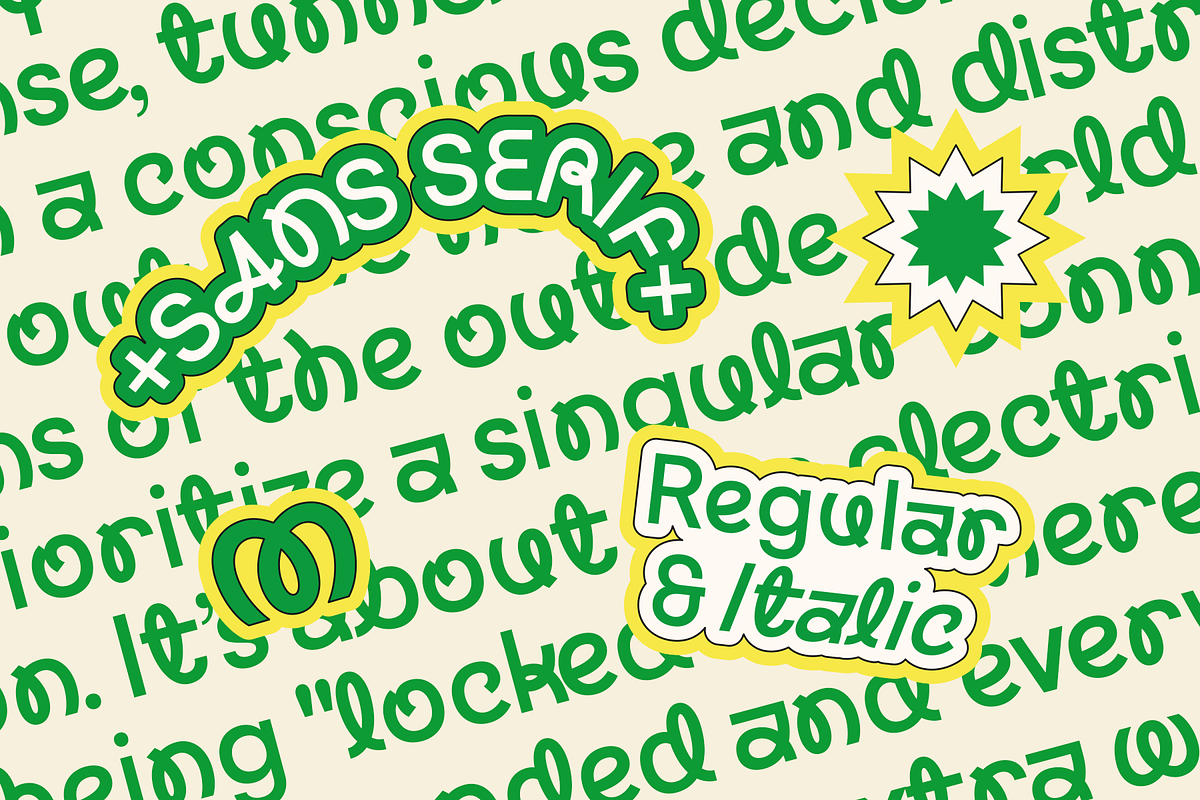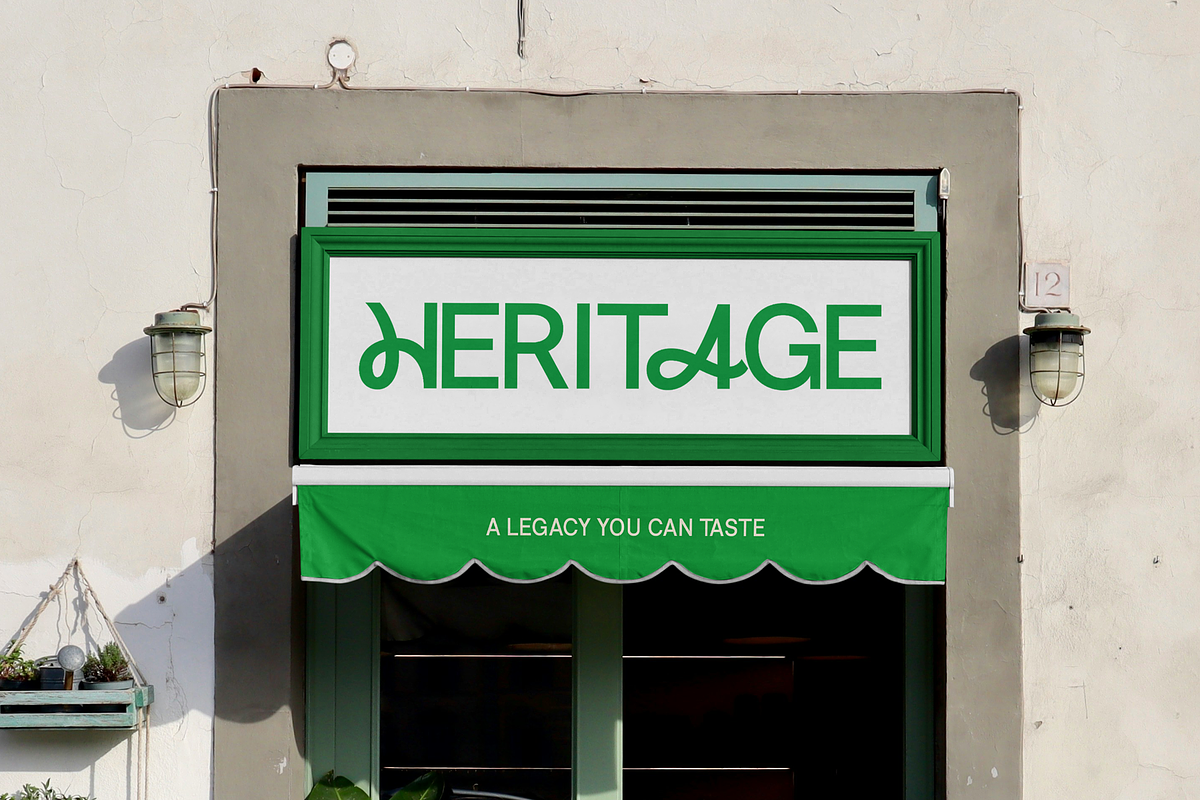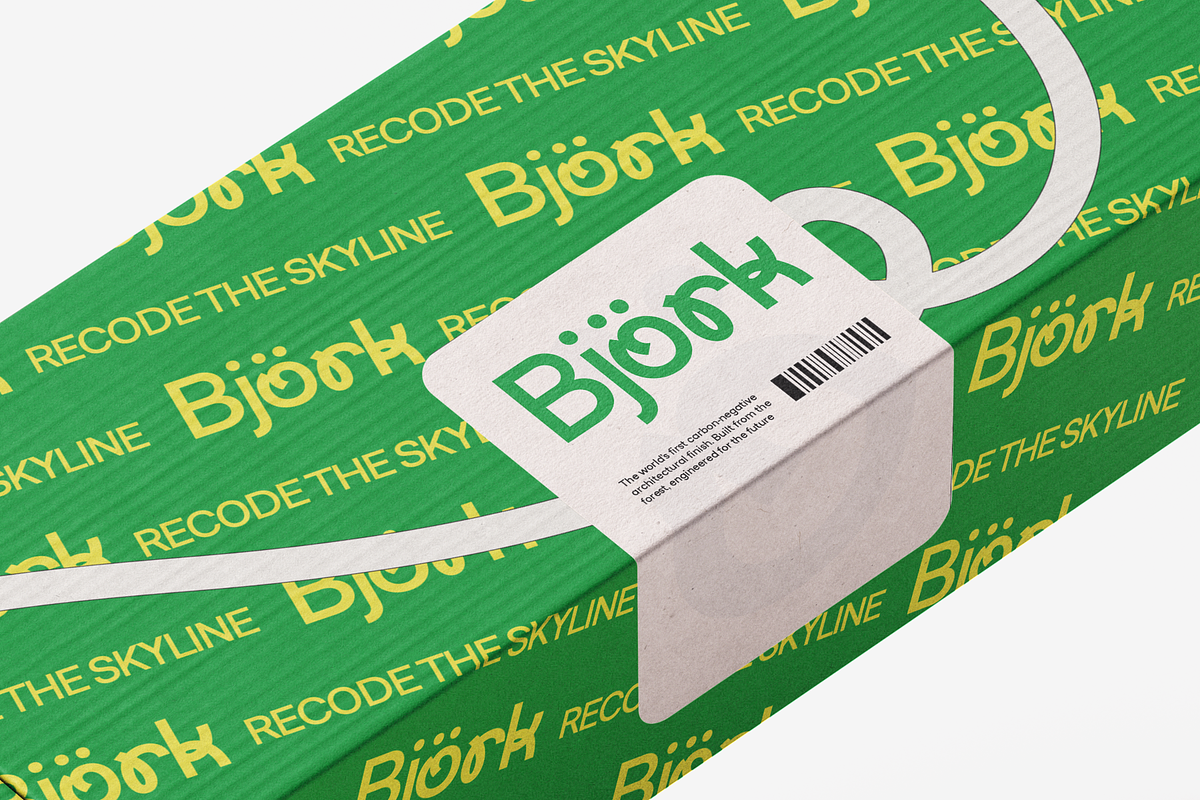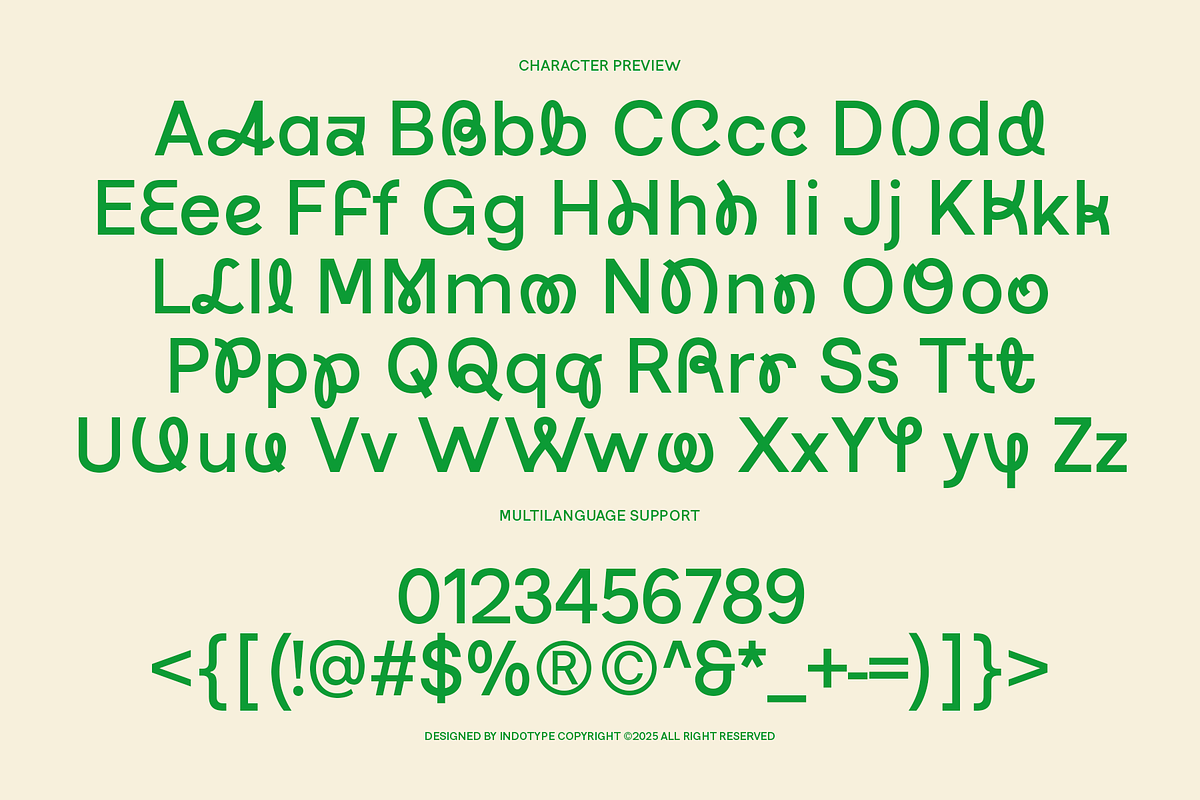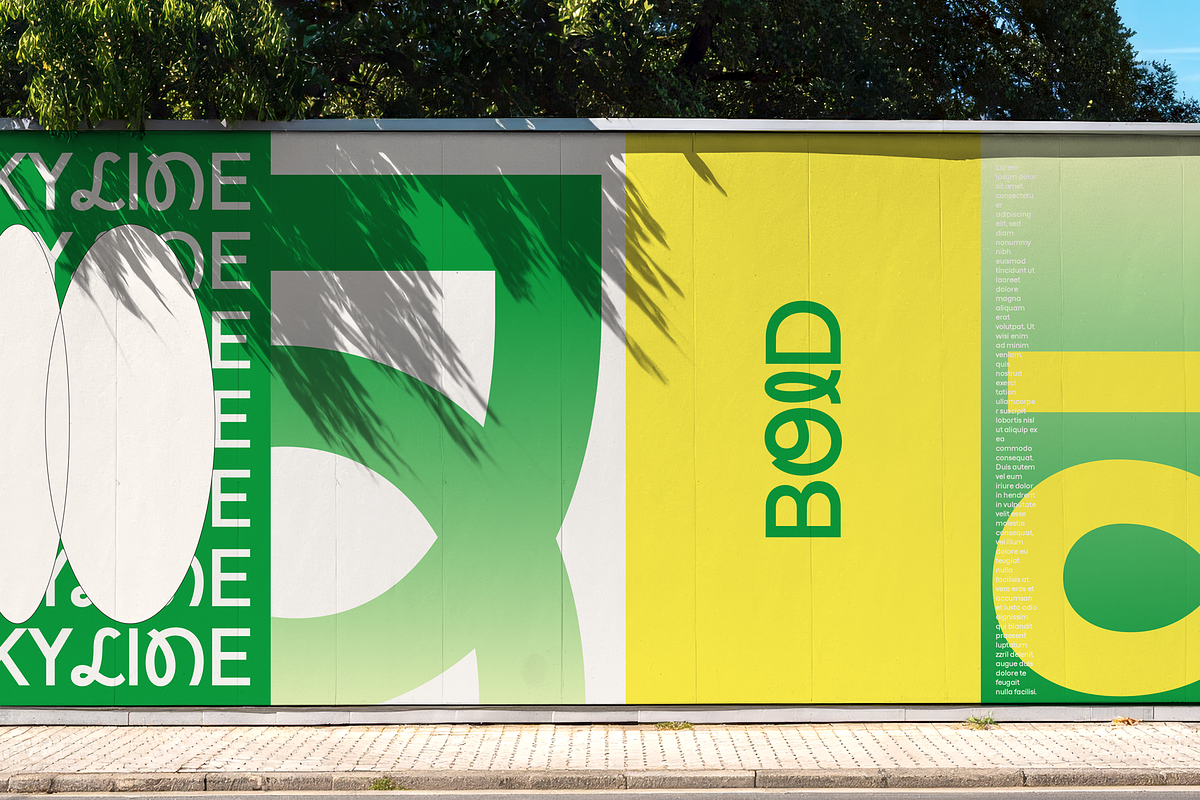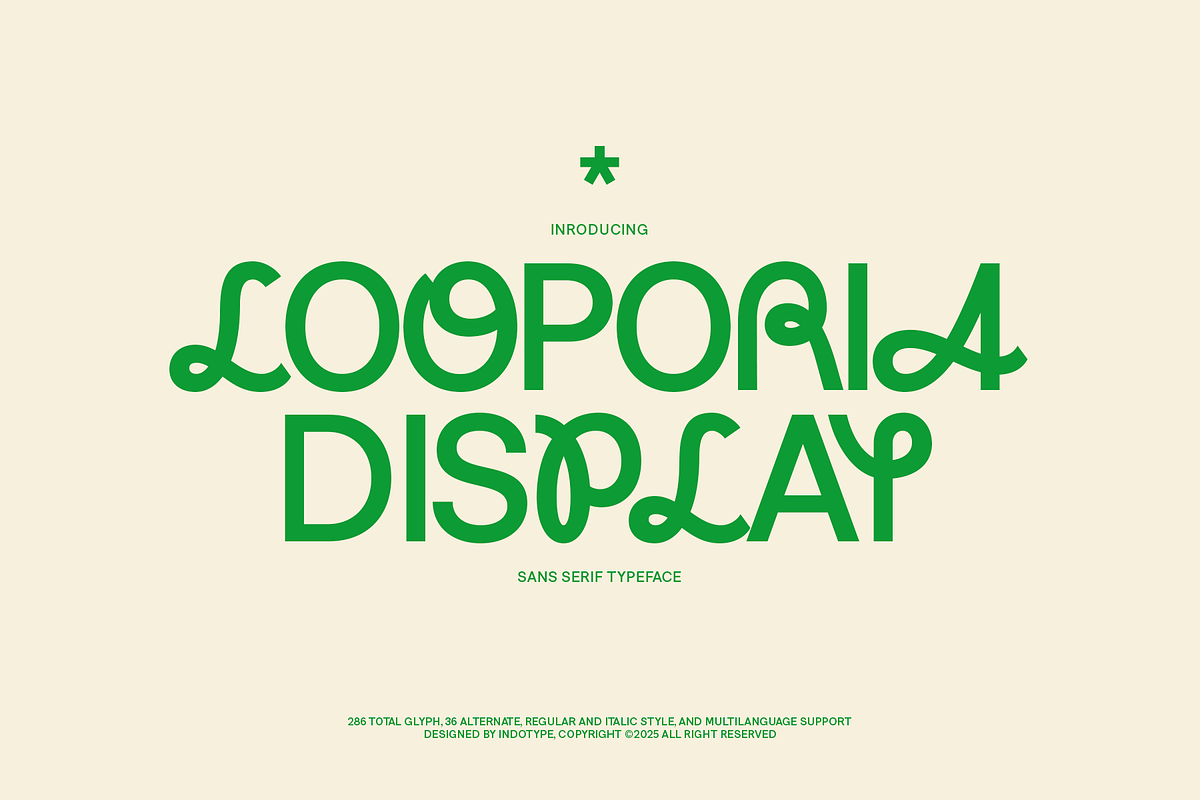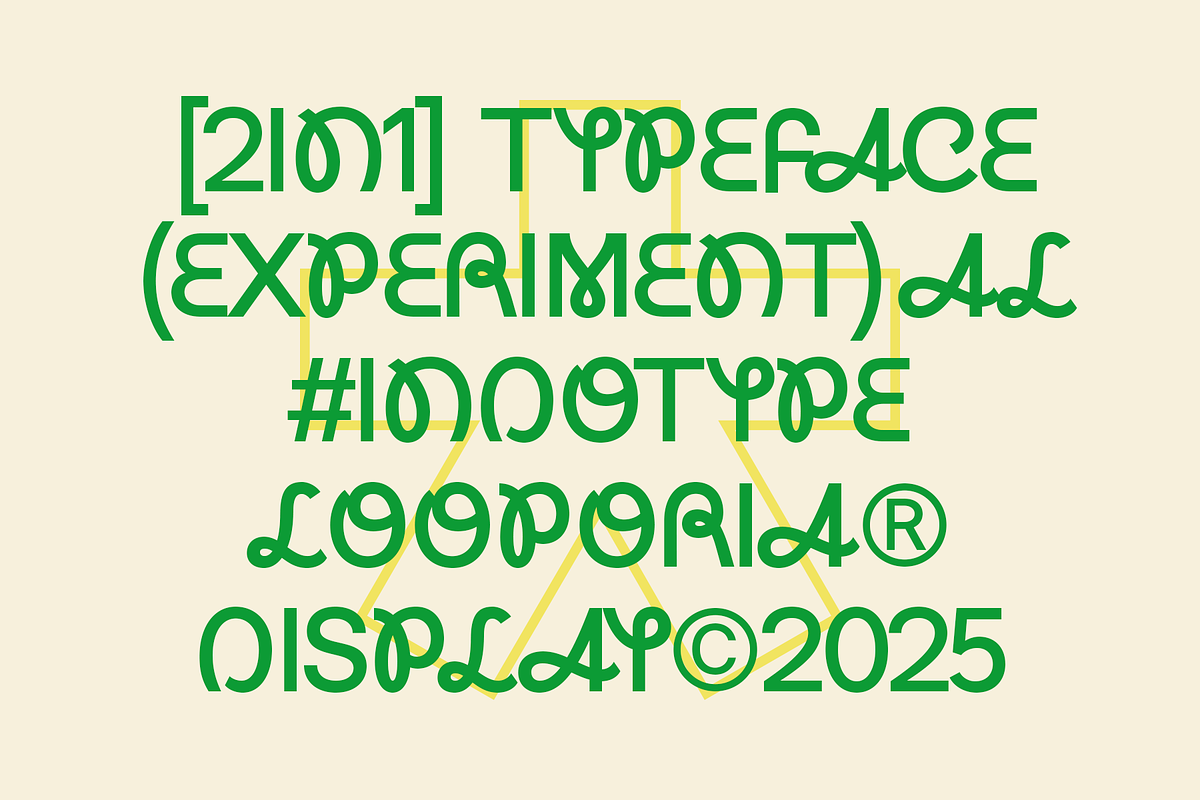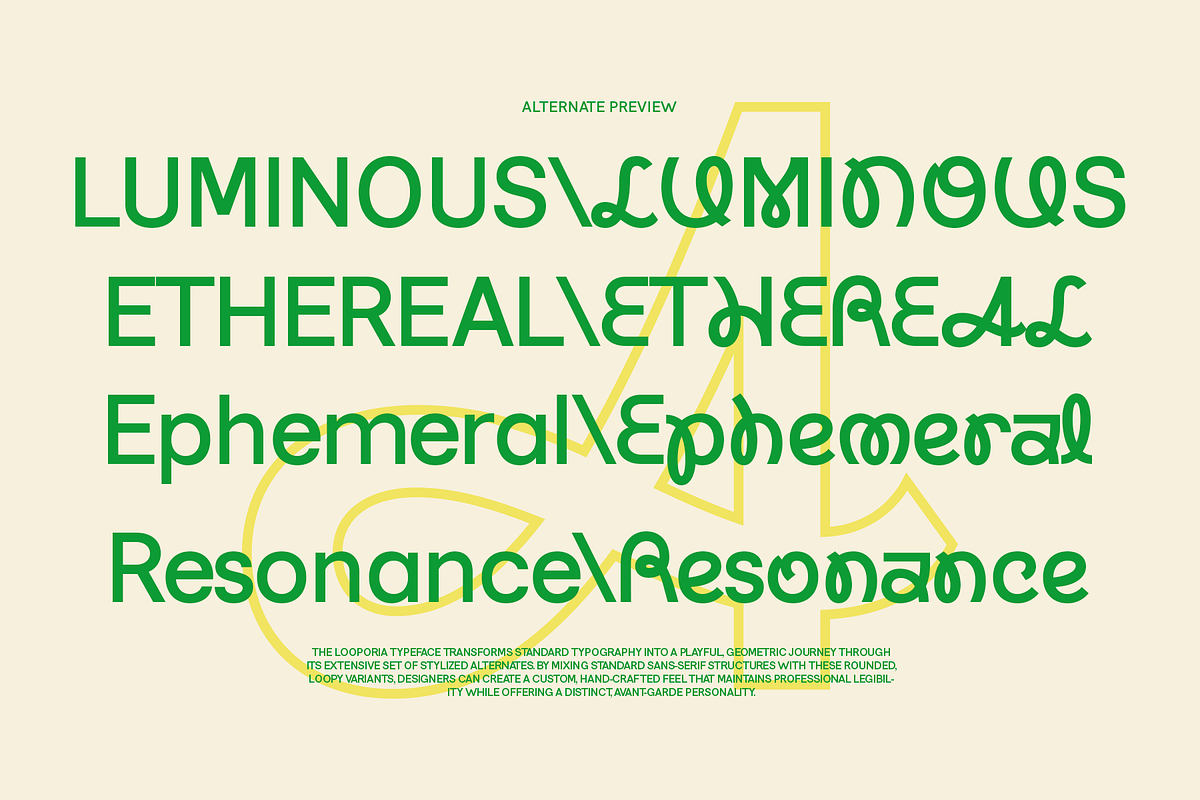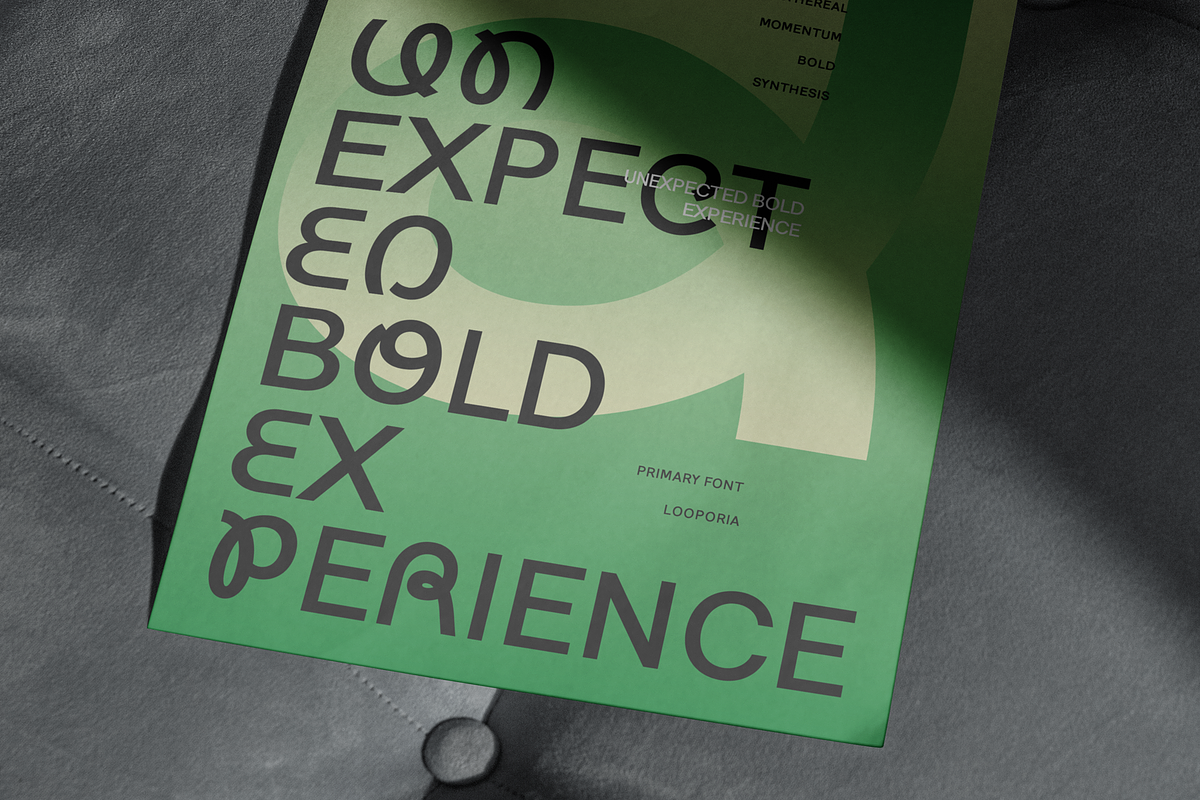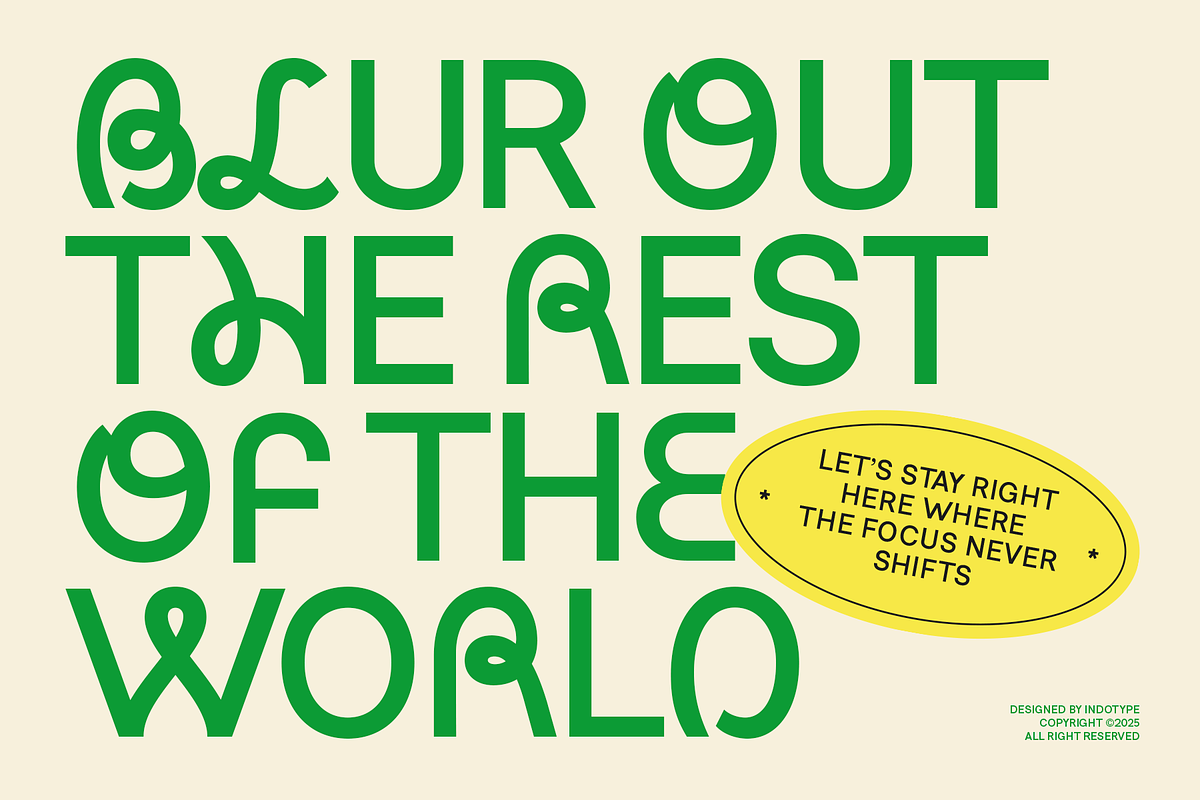
Looporia - Display Sans Serif
Looporia is a meticulously crafted, contemporary display sans-serif typeface designed for maximum versatility and modern appeal. It combines clean, geometric foundations with subtle humanist touches, resulting in a font that is both professional and approachable. With its open apertures and balanced proportions, Looporia ensures exceptional legibility and impact across all display applications. This comprehensive family is packed with utility, featuring 286 total glyphs, 36 stylish alternates for custom flair, and full multilingual support—making it a truly global design tool. Available in both clean Regular and dynamic Italic styles, Looporia is the perfect workhorse for branding systems, editorial headlines, web interfaces, and packaging that demands clarity with character.
- Classification: Sans-Serif, Display, Geometric, Neo-Grotesque.
- Attributes: Clean, Versatile, Modern, Professional, Approachable, Global, Functional.